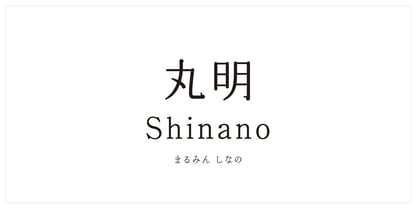
MaruminShinano StdN
by Kinuta Font Factory
The MaruminShinano StdN Font Family was designed by and published by Kinuta Font Factory. MaruminShinano StdN contains 1 styles. More about this family
The kana design of Marumei Shinano is based on the Brush Script style of the metal type era, but with the added graceful touch of brushstroke movement and a bright polished texture. The typeface is suitable for a wide range of purposes.